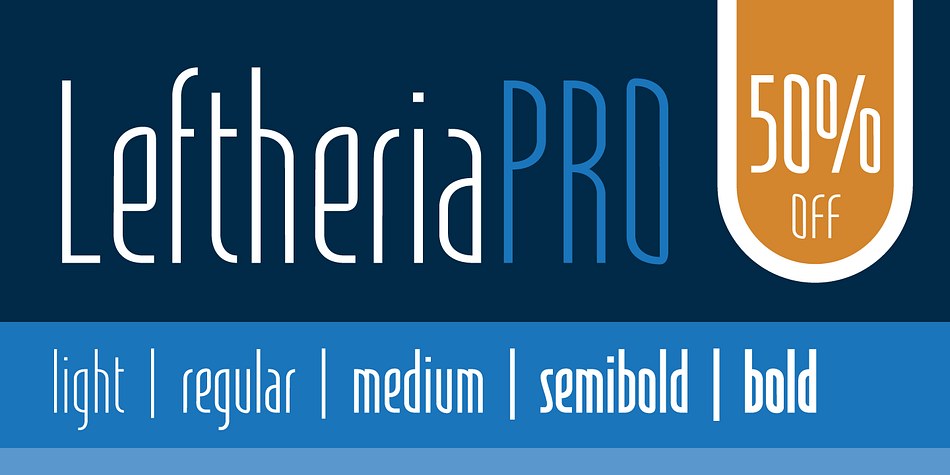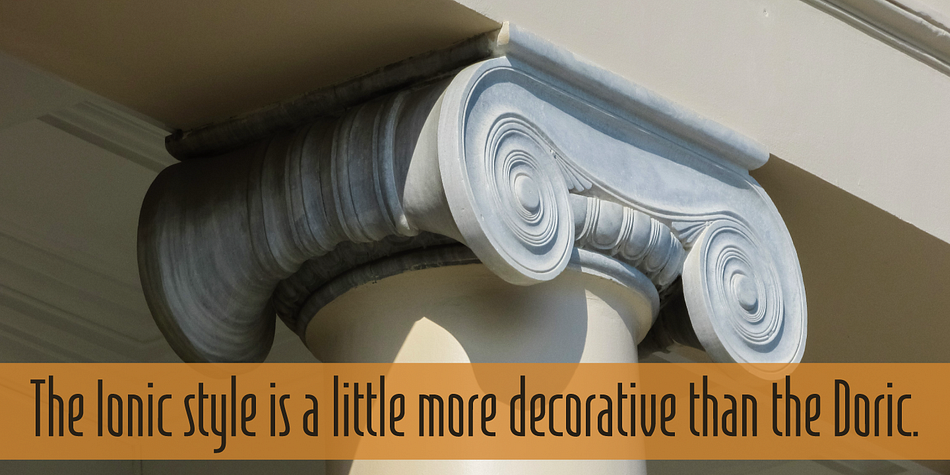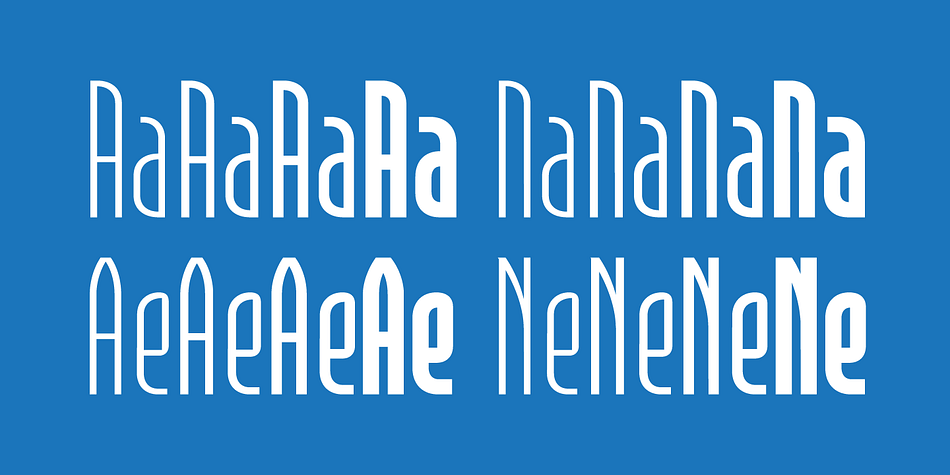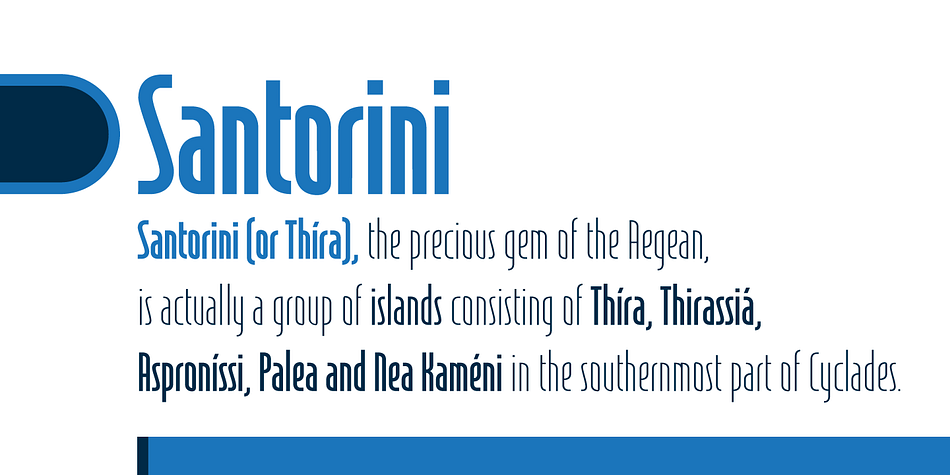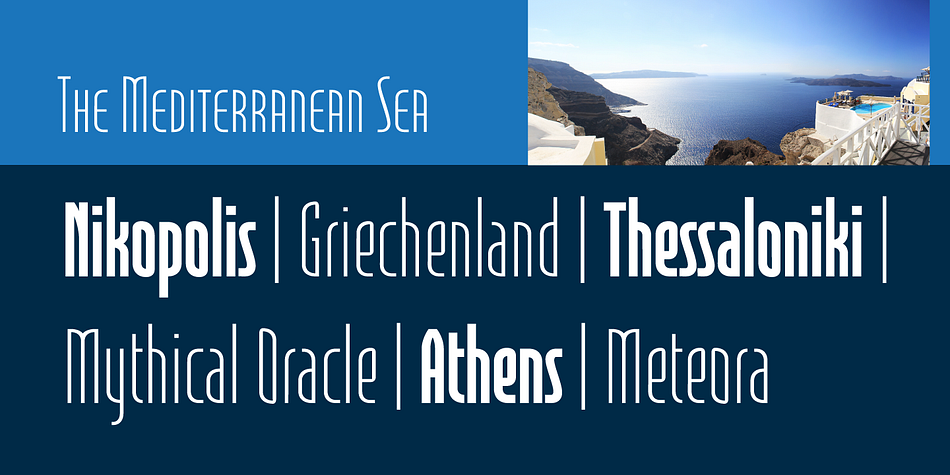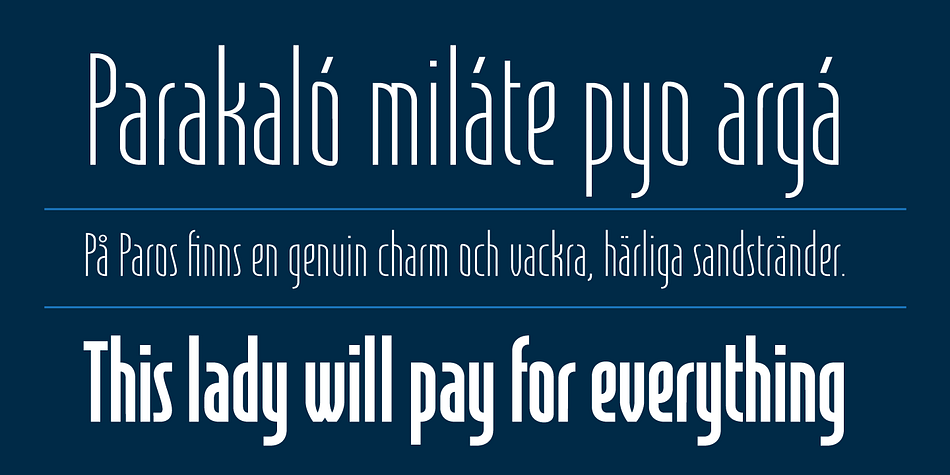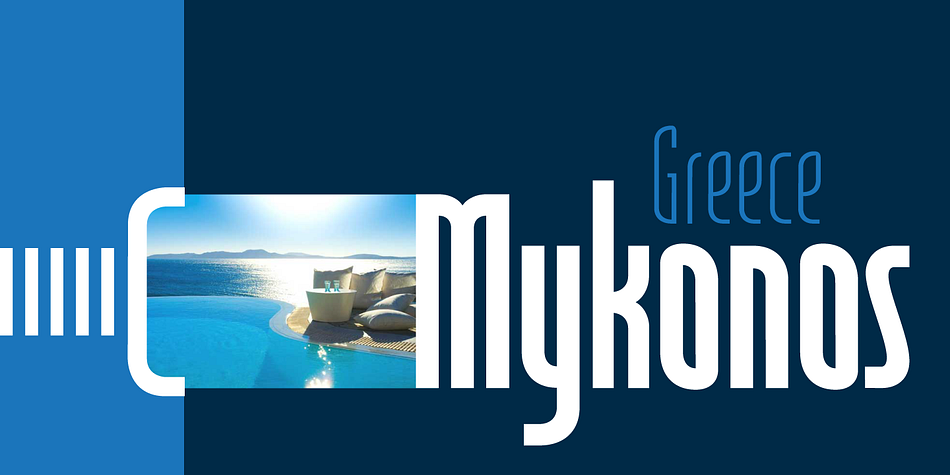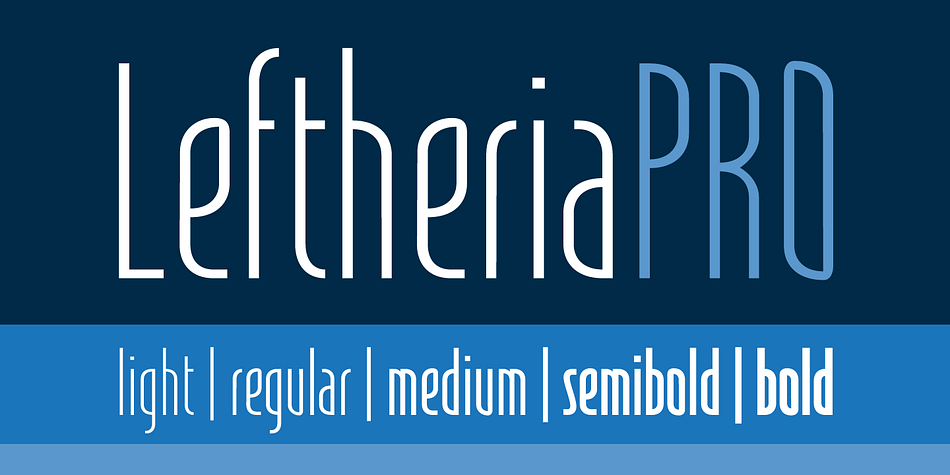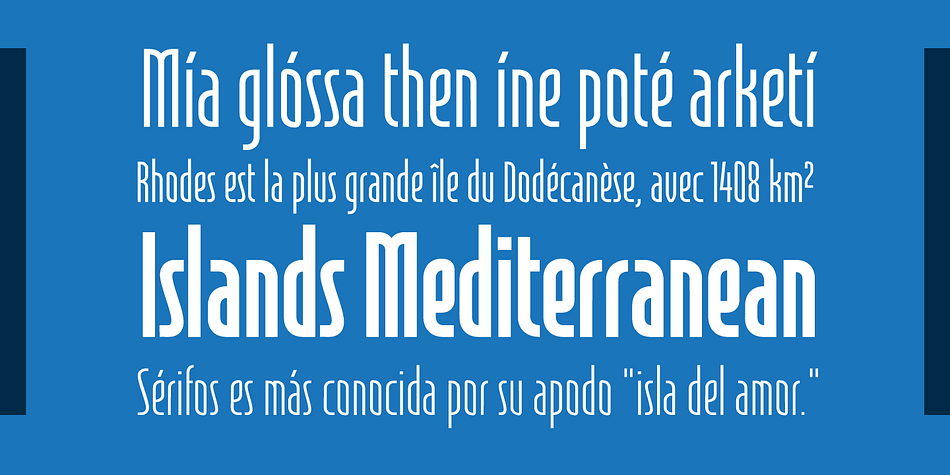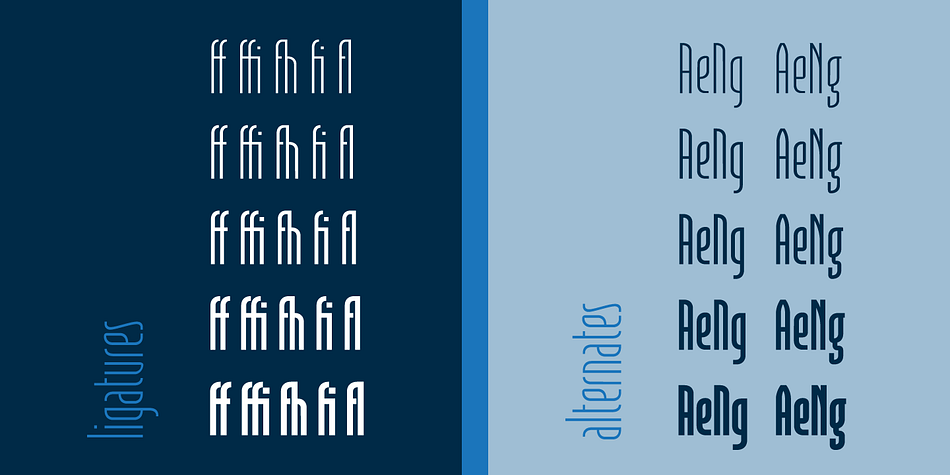
Leftheria PRO is a display sans font family. This typeface has five styles and was published by Sea Types.
Leftheria has its structure projected from the capitals of the Greek columns of Ionian order. It is a typography condensed with vertical emphasis composed by 5 weights (light, regular, medium, semibold, bold) including ligatures, alternates, smal caps, old styles figures, fractions, superiors, inferiors.